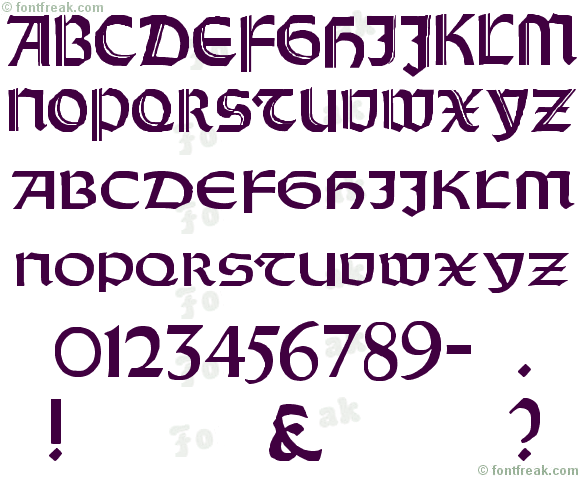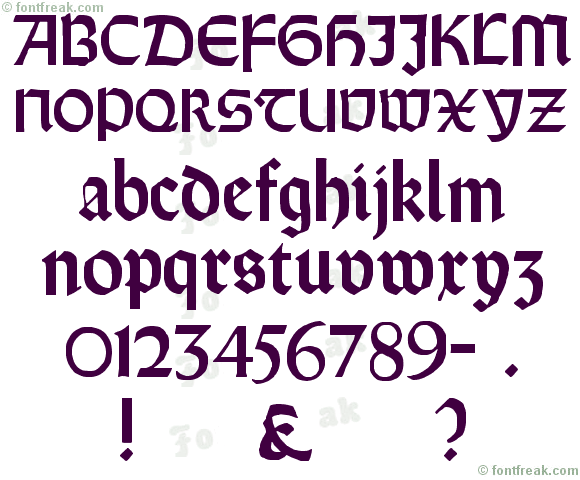
Orotund Heavy
Orotund Capitals Heavy
The Orotund font, designed by Paul Lloyd in 2002, is a striking display typeface characterized by its bold and heavy strokes. As a decorative font, it features a unique blend of modernity and classic elegance, making it stand out among other typefaces. The letterforms are crafted with a strong sense of presence, showcasing a consistent stroke weight that adds to its visual impact. Orotund’s capital letters are particularly noteworthy, exuding confidence and authority while maintaining readability.
This font is perfect for a variety of creative applications. It works exceptionally well for movie posters, where its bold appearance can effectively draw attention to titles and key information. Additionally, Orotund is an excellent choice for restaurant menus, providing a sophisticated flair that enhances the dining experience. Its distinctive style also makes it suitable for wedding invitations, adding a touch of grandeur to special occasions. Content creators and graphic designers will find this font a versatile option for branding projects, helping to convey a strong and memorable identity.
What sets the Orotund font apart is its ability to command attention while remaining approachable. Its boldness is complemented by a certain elegance, allowing it to fit seamlessly into a wide range of design contexts. Whether you’re crafting an eye-catching advertisement or a stylish event invitation, Orotund is sure to make a lasting impression.